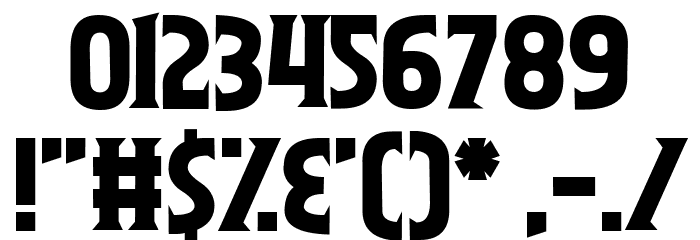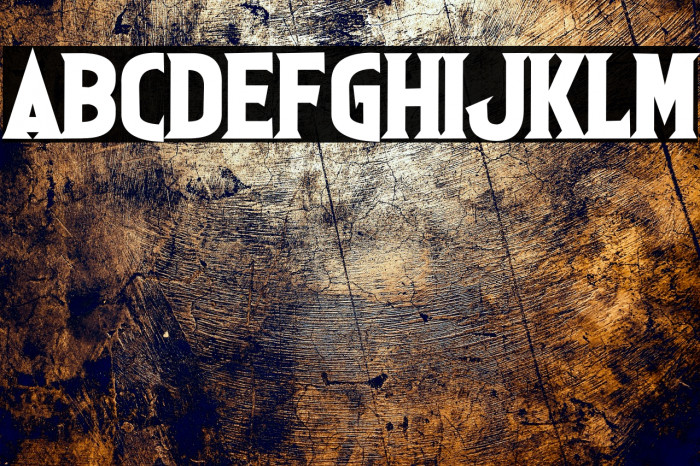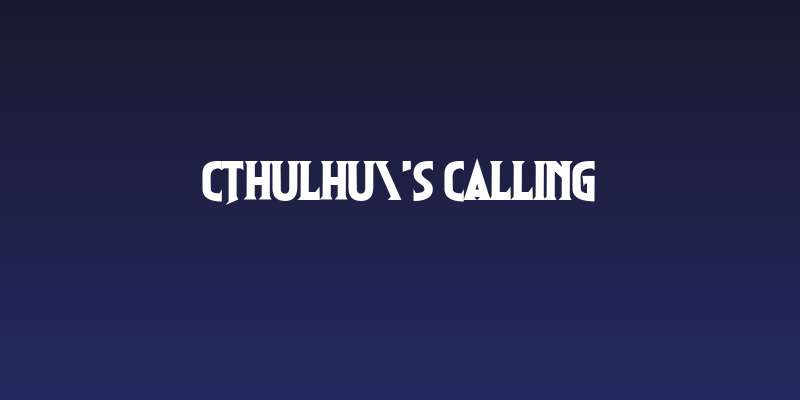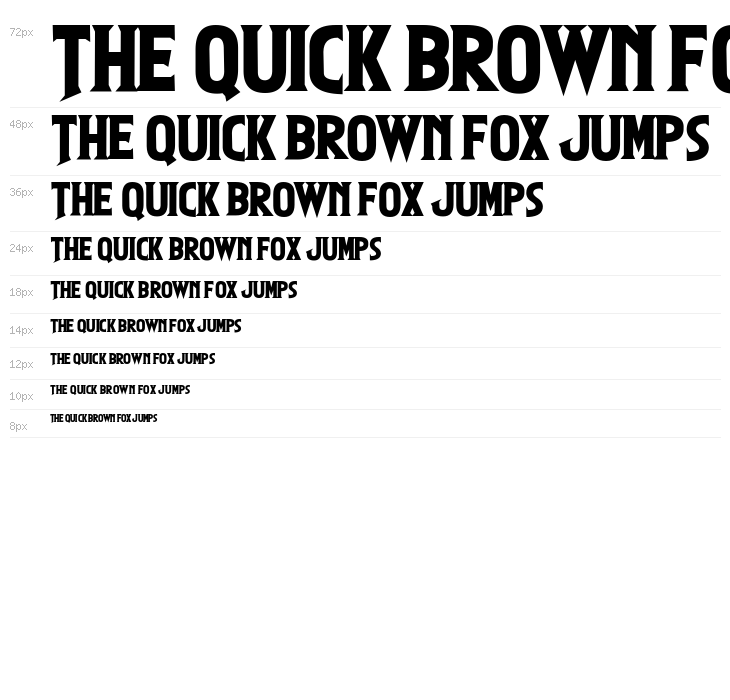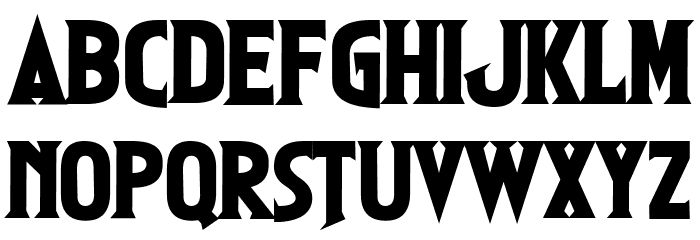
Cthulhu's Calling Font
Cthulhu's Calling Description
This font features a bold and dramatic style with sharp, angular edges and a distinct gothic influence. The uppercase letters are particularly striking, with exaggerated serifs and unique cut-out details that give each character a sense of movement and energy. The numbers and special characters maintain this bold aesthetic, ensuring a cohesive look across all elements. The font's design is reminiscent of classic horror or fantasy themes, making it ideal for projects that require a touch of the dramatic or mysterious.
| Overall Style | Gothic, Dramatic, Fantasy |
| Proposed Projects | Ideal for horror-themed posters, fantasy book covers, video game titles, and branding for edgy or alternative products. |